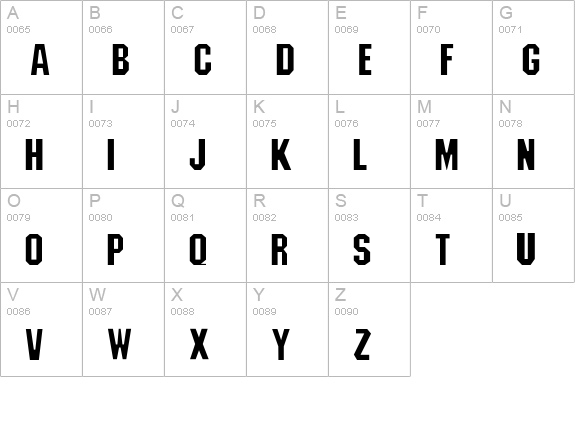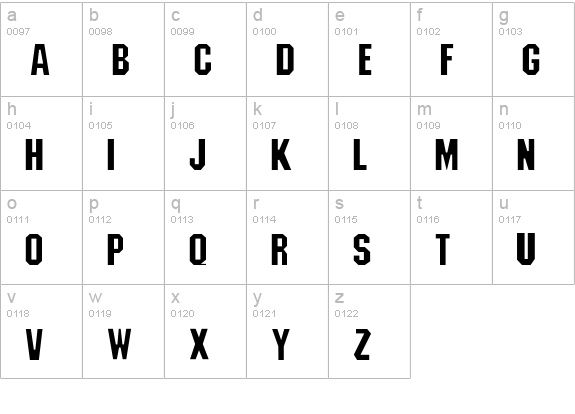
Machiavelli-Lig Font Details
Introducing the captivating and versatile Machiavelli-Lig font, an exquisite typeface that effortlessly combines elegance with modernity. This font is a true masterpiece, meticulously crafted to bring your designs to life and leave a lasting impression on your audience. With its sleek and sophisticated letterforms, Machiavelli-Lig font exudes confidence and style. Its delicate curves and clean lines create an aesthetic that is both refined and approachable, making it a perfect choice for a wide range of design projects. What sets Machiavelli-Lig font apart is not only its stunning visual appeal but also its exceptional functionality. This font is designed to be highly legible, ensuring that your message is effortlessly conveyed to your readers. Whether used for headlines, body text, or any other design element, Machiavelli-Lig font will captivate your audience with its effortless readability. One of the most exciting aspects of Machiavelli-Lig font is that it is freely available to download at FontsMarket.com. This means that you can easily access and utilize this incredible font for your personal or commercial projects without any limitations. This accessibility allows you to unleash your creativity and explore the endless possibilities that Machiavelli-Lig font offers. Whether you're designing a logo, creating a magazine layout, or crafting a website, Machiavelli-Lig font is the ultimate tool to elevate your designs to new heights. Its timeless appeal and versatility make it a must-have for any designer's arsenal. So why wait? Embrace the elegance and sophistication of Machiavelli-Lig font and set your designs apart from the rest. Download this extraordinary font for free at FontsMarket.com and unlock a world of endless design possibilities.